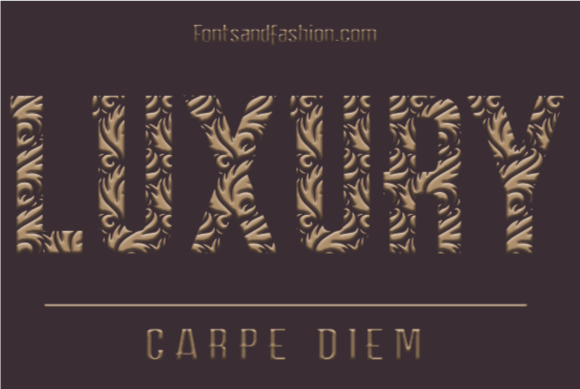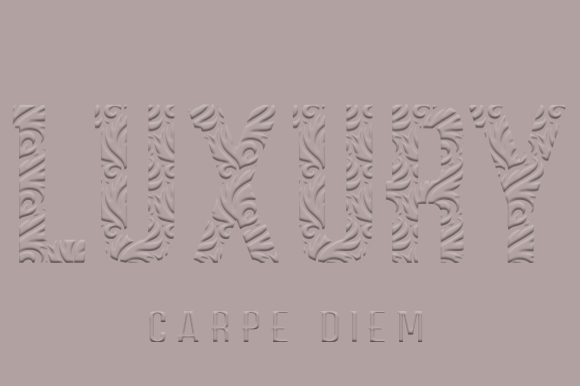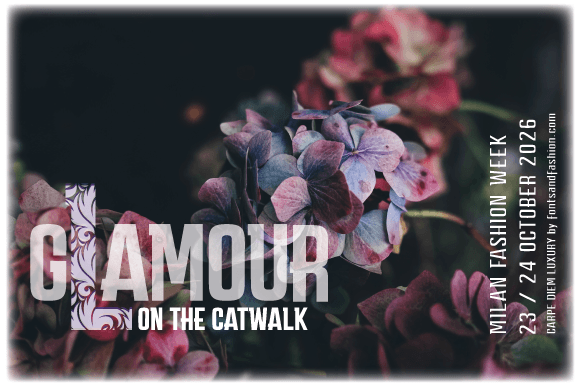
Carpe Diem Luxury Font
Luxury is a gorgeous decorative font, that fits incredibly well to this time of the year. No matter the topic, this font will be an incredible asset to your fonts' library, as it has the potential to elevate any creation.